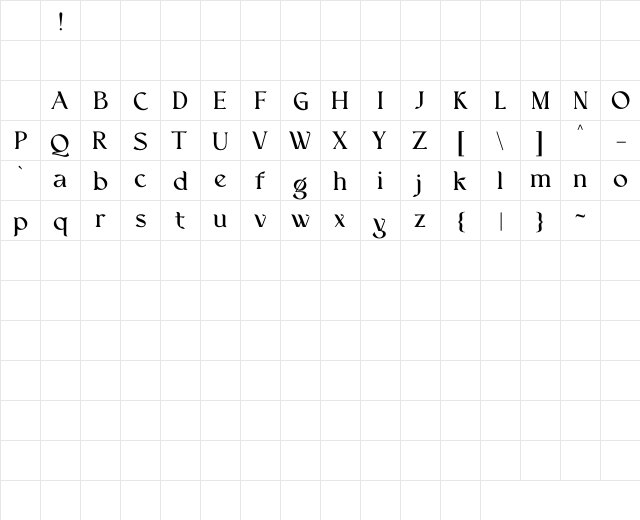
Complete WolfsburgCastle Regular glyph index. Displaying only characters natively supported by WolfsburgCastle Regular font.
WolfsburgCastle is a composed and adaptable typeface that performs quietly and consistently across a wide range of design contexts.